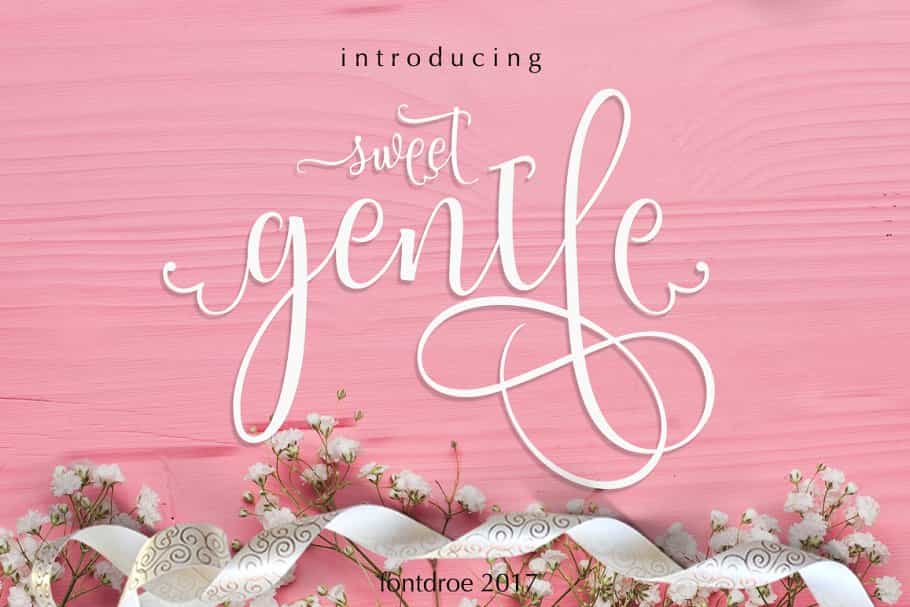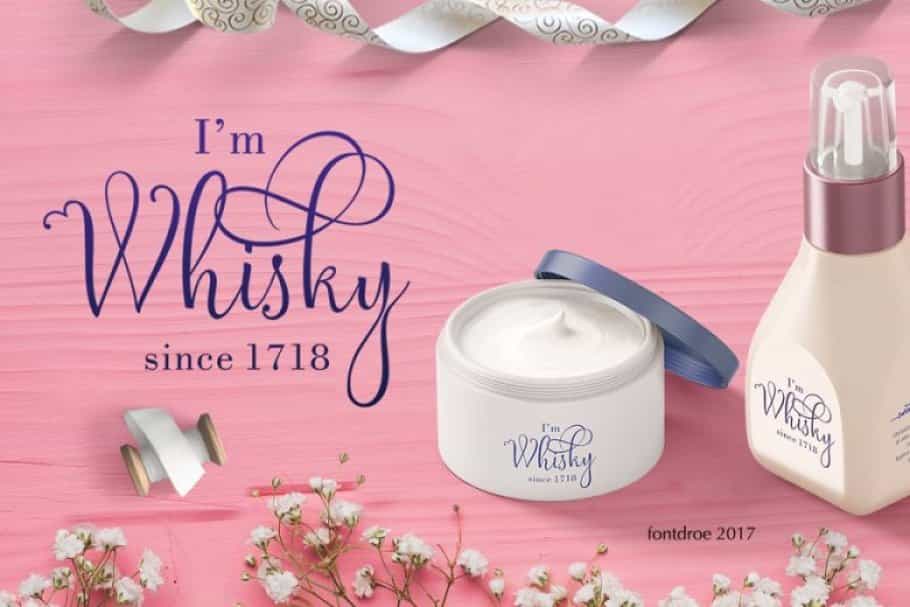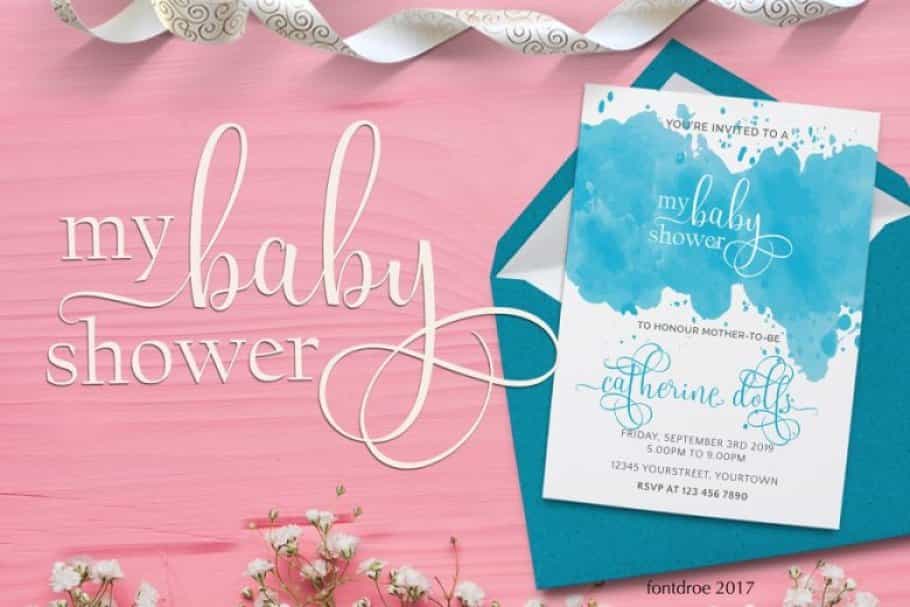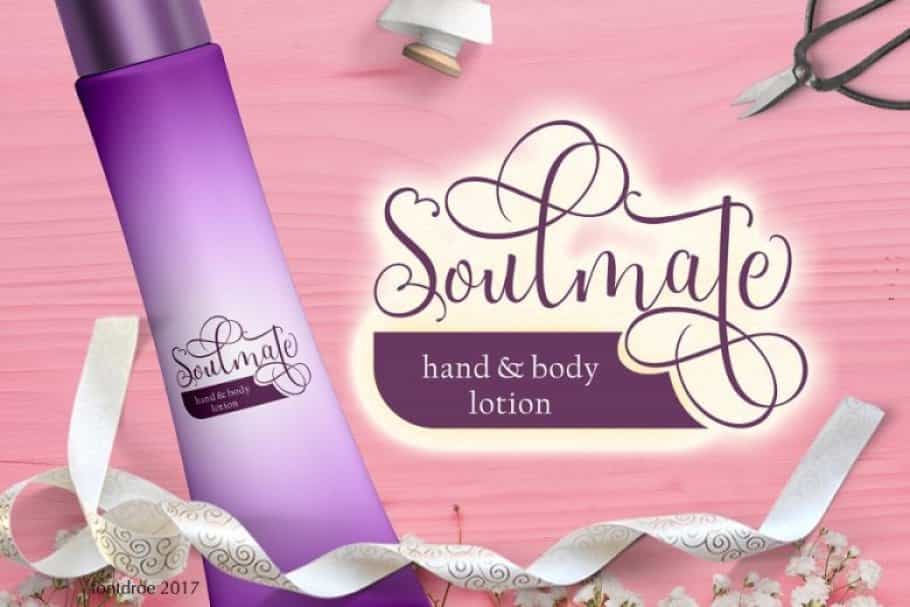
Sweetgentle Font. The Sweet Gentle Calligraphy Font was designed and shared by Fontdroe. The new calligraphy SWEETGENTLE typeface was created using 750 characters. This Modern Calligraphy typeface intended for versatility it was made with the various layout in mind.